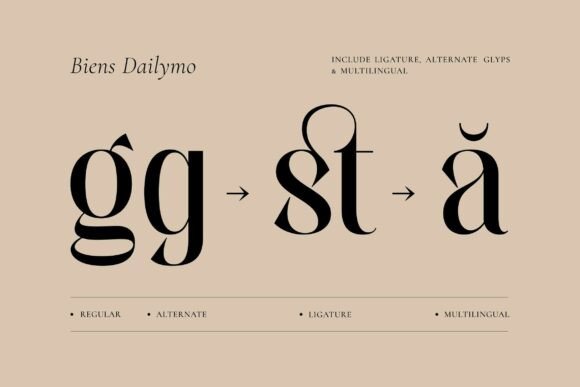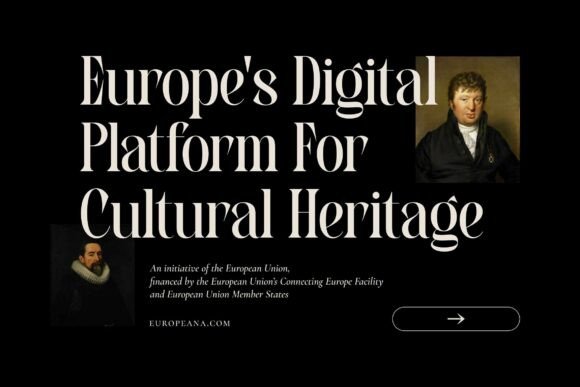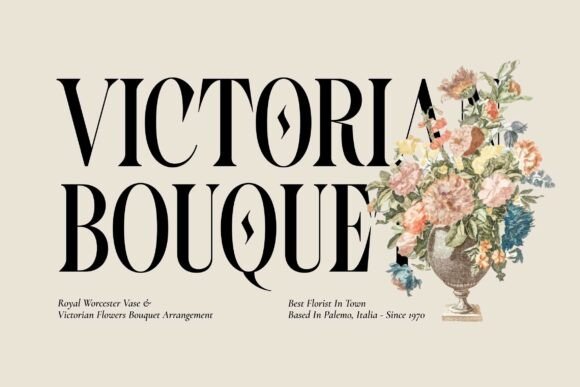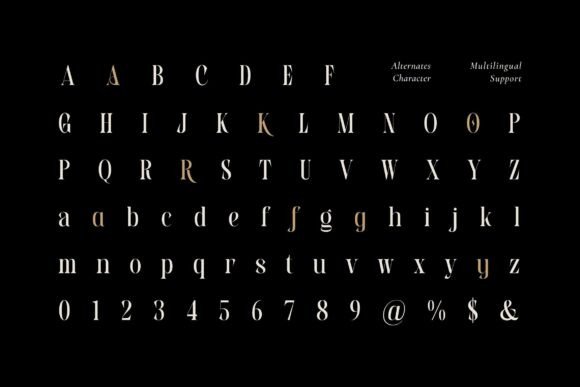
Introducing Biens Dailymo Font: Elevate Your Designs with Timeless Elegance
In the world of typography, a font can make or break a design. For those seeking a touch of sophistication and classic charm, Biens Dailymo Font is an exceptional choice. This chic display serif font seamlessly blends timeless classical proportions with sharp, modern elements to capture attention with dramatic contrast. Whether you’re working on magazine covers, fashion campaigns, or luxury packaging, Biens Dailymo is designed to elevate your designs to new heights.
Characteristics of Biens Dailymo Font
Biens Dailymo boasts a range of distinctive features that set it apart from other fonts. Its wedge serifs give it an editorial feel, perfect for designs that require a sense of refinement and elegance. The font’s dramatic contrast between thick and thin strokes adds a level of sophistication, making it ideal for high-end applications. With Biens Dailymo, you can create statement logos, eye-catching posters, and packaging that exudes luxury and style.
Perfect for High-End Applications
Biens Dailymo Font shines in a variety of applications, including:
- Magazine covers: Add a touch of elegance to your publication with Biens Dailymo’s sophisticated serif design.
- Fashion campaigns: Make a statement with bold, eye-catching typography that exudes style and sophistication.
- Perfume and jewelry packaging: Elevate your luxury brand with refined, high-end typography.
- Gallery posters: Showcase art and culture with a font that embodies classic elegance.
- Statement logos: Create a lasting impression with a bold, sophisticated logo that commands attention.
Stylistic Alternates and Ligatures
One of the standout features of Biens Dailymo Font is its range of stylistic alternates and ligatures. These allow you to dial the tone of your design from classic to ornate, giving you unparalleled flexibility. Whether you’re aiming for understated elegance or opulent extravagance, Biens Dailymo has you covered.
Why Choose Biens Dailymo Font?
With so many fonts available, why choose Biens Dailymo? Here are just a few compelling reasons:
- Timeless elegance: Biens Dailymo’s classic proportions ensure it will remain stylish for years to come.
- Versatility: From luxury packaging to editorial design, Biens Dailymo is suitable for a wide range of applications.
- Attention-grabbing: The font’s dramatic contrast and wedge serifs make it perfect for designs that need to stand out.
- High-end feel: Biens Dailymo’s sophisticated design makes it ideal for luxury brands and high-end applications.
Biens Dailymo Font is an exceptional choice for designers and crafters seeking to add a touch of timeless elegance to their work. With its blend of classical proportions and sharp, modern elements, this chic display serif font is sure to elevate your designs to new heights. Whether you’re working on magazine covers, fashion campaigns, or luxury packaging, Biens Dailymo is the perfect choice for those who demand the best.